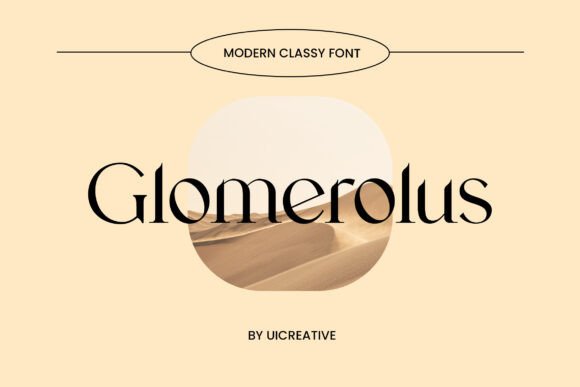
Glomerolus Font: The Elegant and Charming Choice for Your Designs
The world of typography is vast and diverse, with numerous fonts available for designers to choose from. However, when it comes to creating elegant and charming designs, one font stands out from the rest: Glomerolus Font. This beautiful font is perfect for adding a touch of sophistication and glamour to various design projects, including wedding invitations, thank you cards, quotes, greeting cards, logos, business cards, and more.
What Makes Glomerolus Font Special?
Glomerolus Font is a stunning typeface that feels equally charming and elegant. Its unique design makes it an excellent choice for designers who want to create beautiful and eye-catching designs. The font’s features include:
- Elegant and Charming Design: Glomerolus Font has a distinctive and sophisticated design that makes it perfect for creating elegant and charming designs.
- Multipurpose: Glomerolus Font is suitable for various design projects, including wedding invitations, thank you cards, quotes, greeting cards, logos, business cards, and more.
Design Applications for Glomerolus Font
Glomerolus Font is a versatile typeface that can be used in a wide range of design applications. Here are some of the most popular uses for this beautiful font:
- Wedding Invitations: Glomerolus Font is perfect for creating elegant and charming wedding invitations that set the tone for the special day.
- Thank You Cards: The font’s elegant design makes it an excellent choice for creating beautiful thank you cards for various occasions.
- Quotes: Glomerolus Font is suitable for creating inspirational and motivational quotes that are sure to impress.
- Greeting Cards: The font’s charming design makes it perfect for creating greeting cards for various occasions, including birthdays, anniversaries, and holidays.
- Logos: Glomerolus Font can be used to create elegant and sophisticated logos for businesses and brands.
- Business Cards: The font’s professional design makes it an excellent choice for creating business cards that make a lasting impression.
Typography Tips for Using Glomerolus Font
To get the most out of Glomerolus Font, here are some typography tips to keep in mind:
- Pair with Other Fonts: Glomerolus Font can be paired with other fonts to create a unique and visually appealing design.
- Adjust Font Size: Experiment with different font sizes to create visual hierarchy and emphasis.
- Experiment with Colors: Try out different colors to find the perfect combination that complements your design.
The Benefits of Using Glomerolus Font
Glomerolus Font offers numerous benefits for designers, including:
- Unique Design: The font’s distinctive design sets it apart from other typefaces.
- Multipurpose: The font is suitable for various design projects, making it a versatile addition to any design library.
- Elegant and Charming: Glomerolus Font adds a touch of elegance and charm to any design.
In conclusion, Glomerolus Font is a stunning typeface that is perfect for designers who want to create elegant and charming designs. Its unique design, PUA encoding, and multipurpose nature make it an excellent addition to any design library. With its wide range of design applications, typography tips, and benefits, Glomerolus Font is sure to become a favorite among designers.